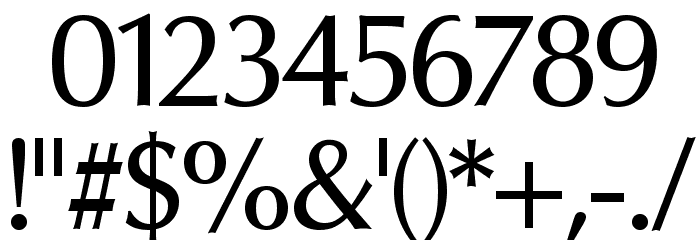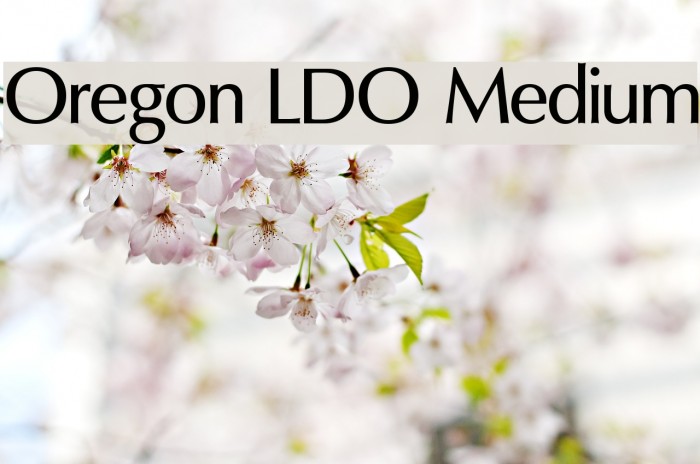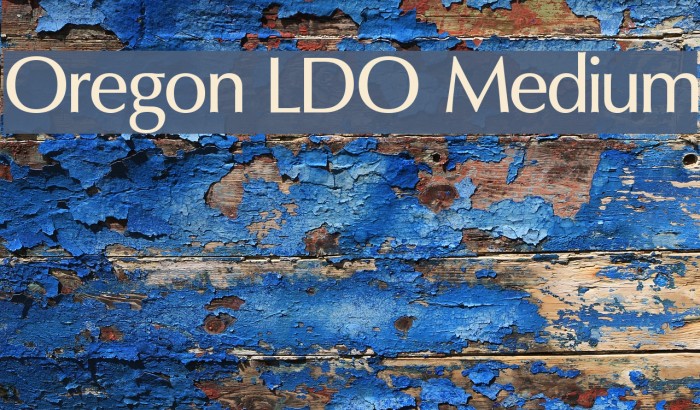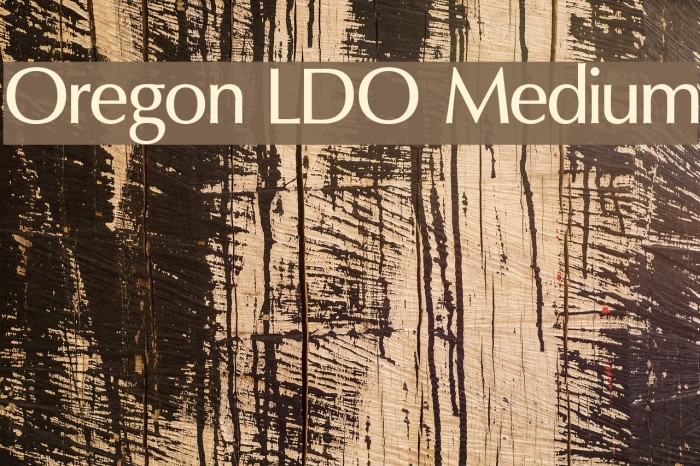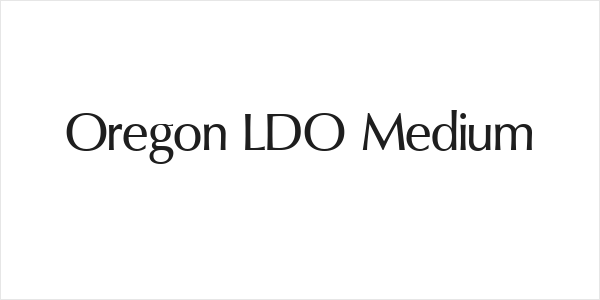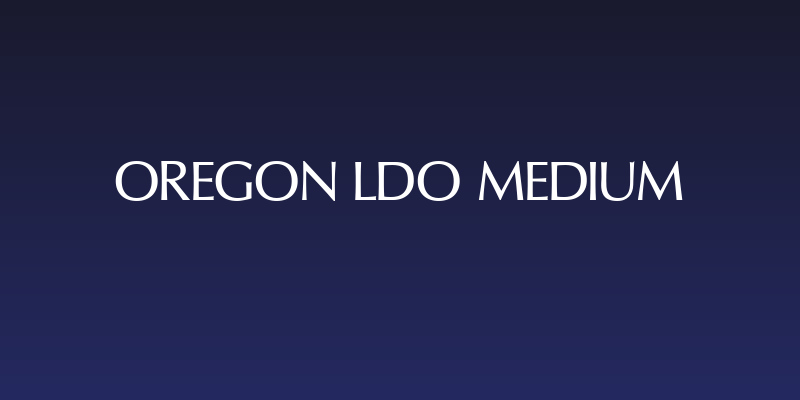
Oregon LDO Medium Font
Oregon LDO Medium Description
This font exhibits a clean and modern aesthetic with a focus on readability and elegance. The uppercase letters are well-proportioned, with a slight contrast in stroke thickness that adds a touch of sophistication. The lowercase letters maintain a consistent style, offering a harmonious flow that complements the uppercase set. The numerals are clear and distinct, making them suitable for various applications. Special characters are designed with precision, ensuring they blend seamlessly with the overall style. The font's medium weight provides a balanced appearance, making it versatile for both digital and print media.